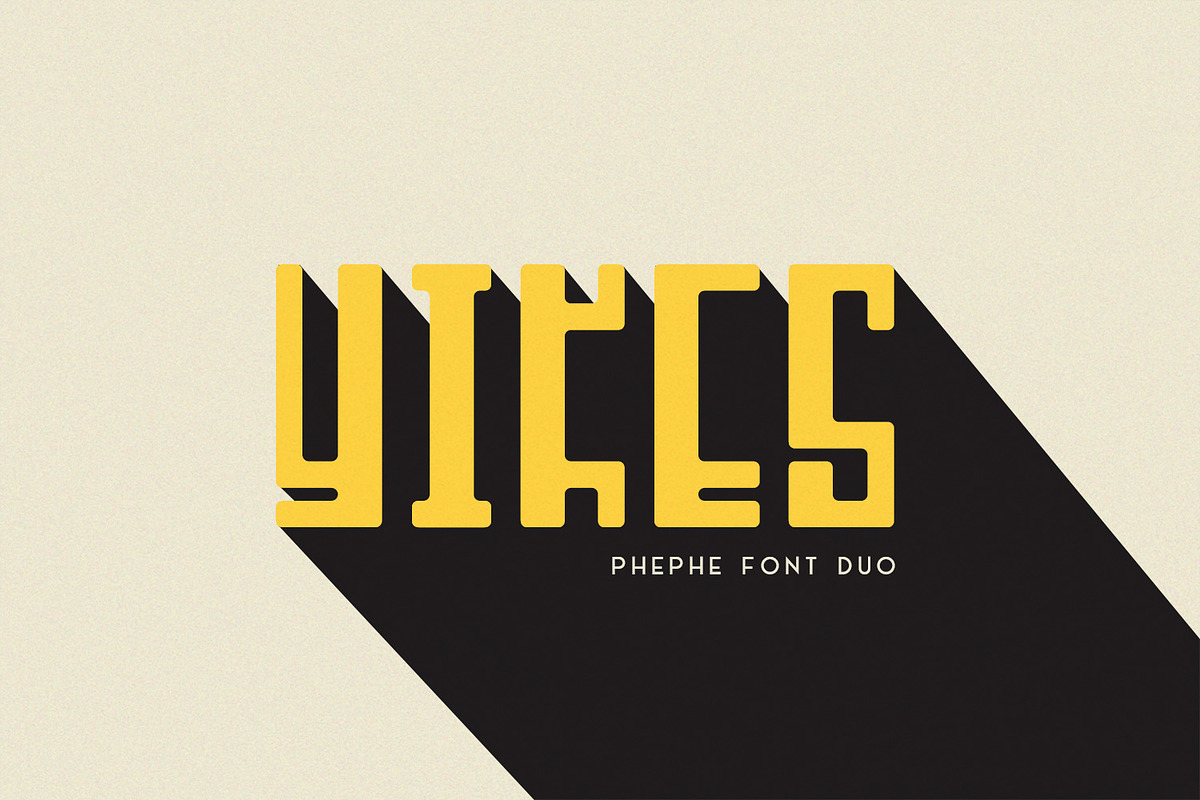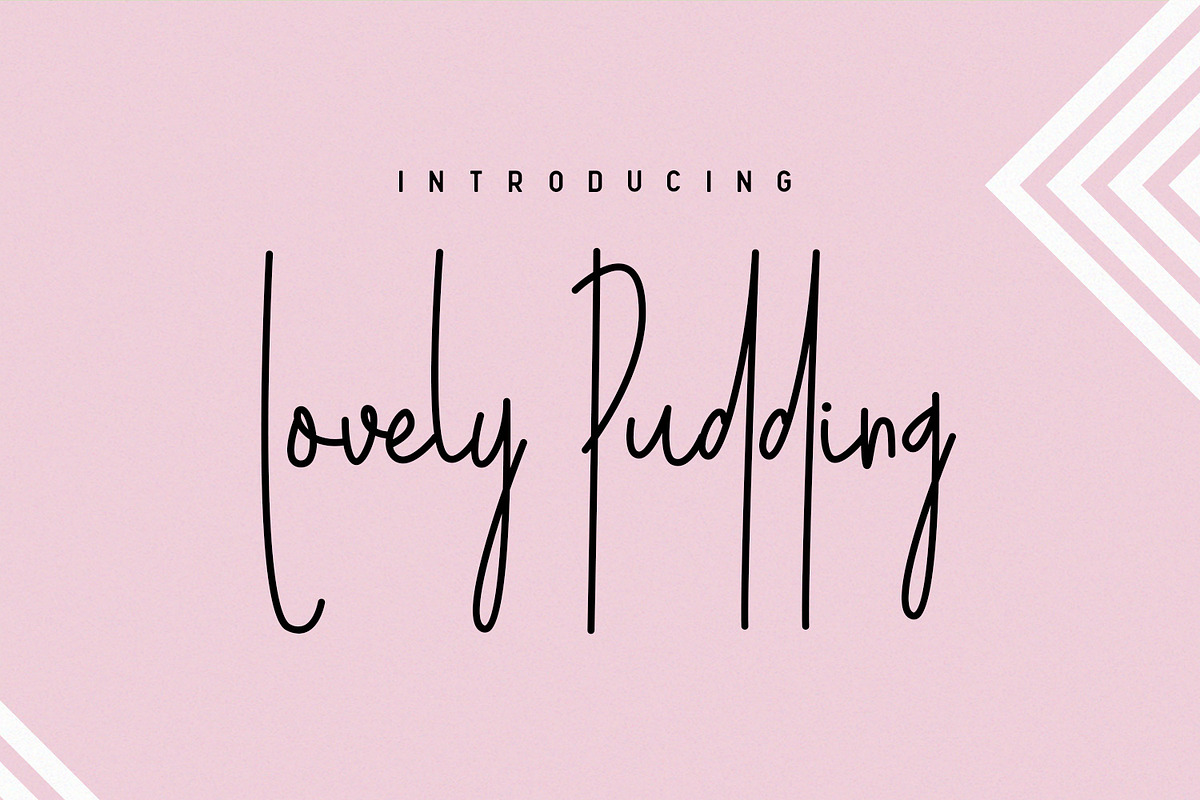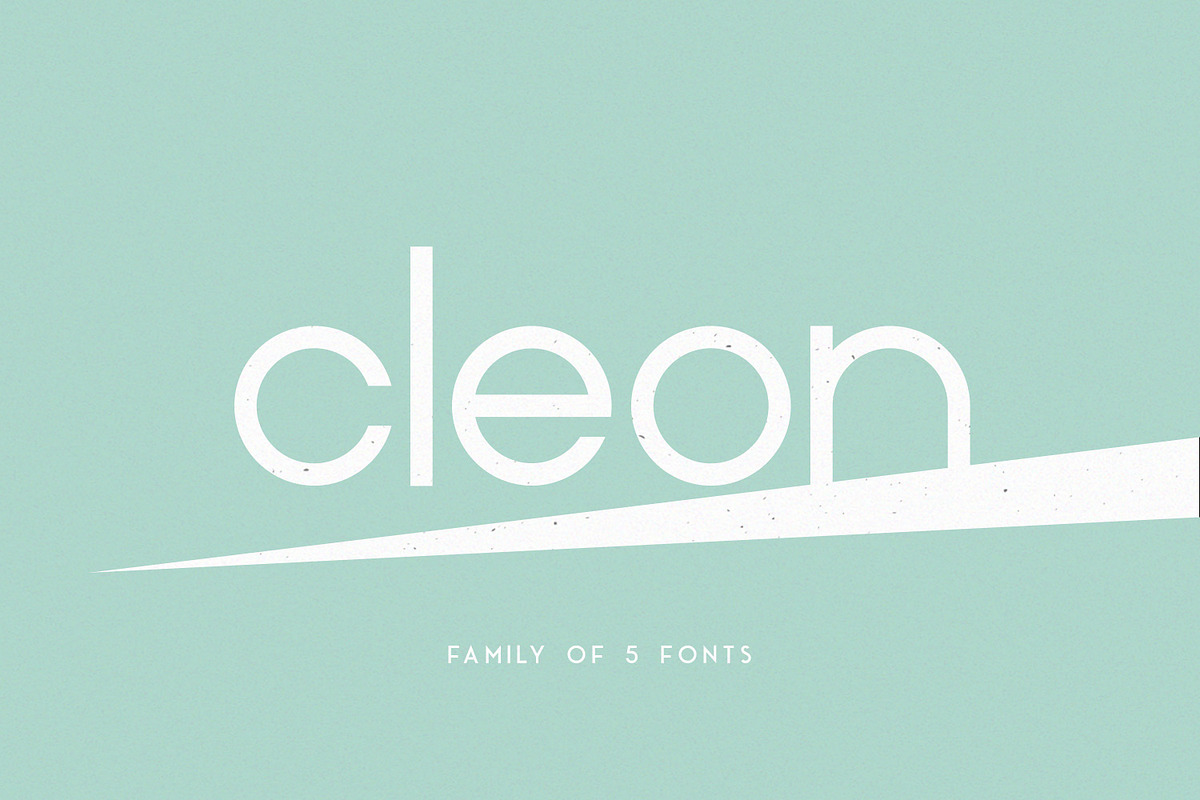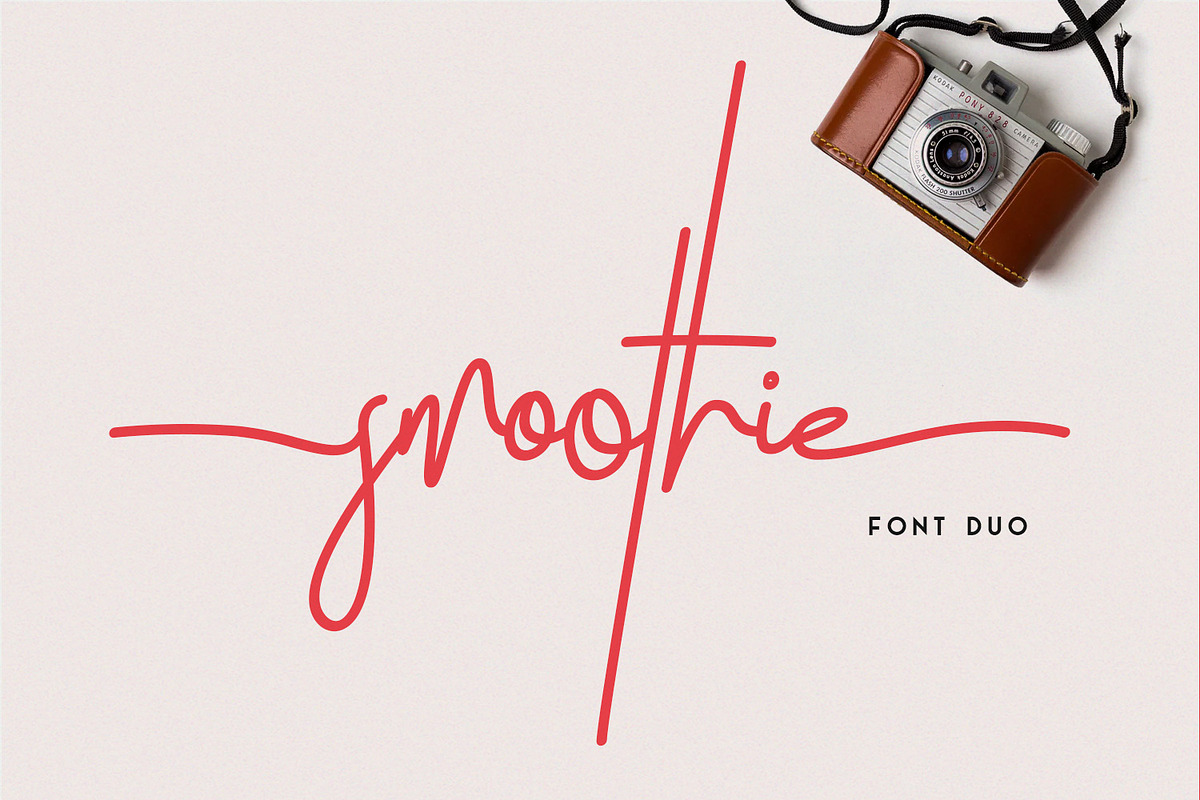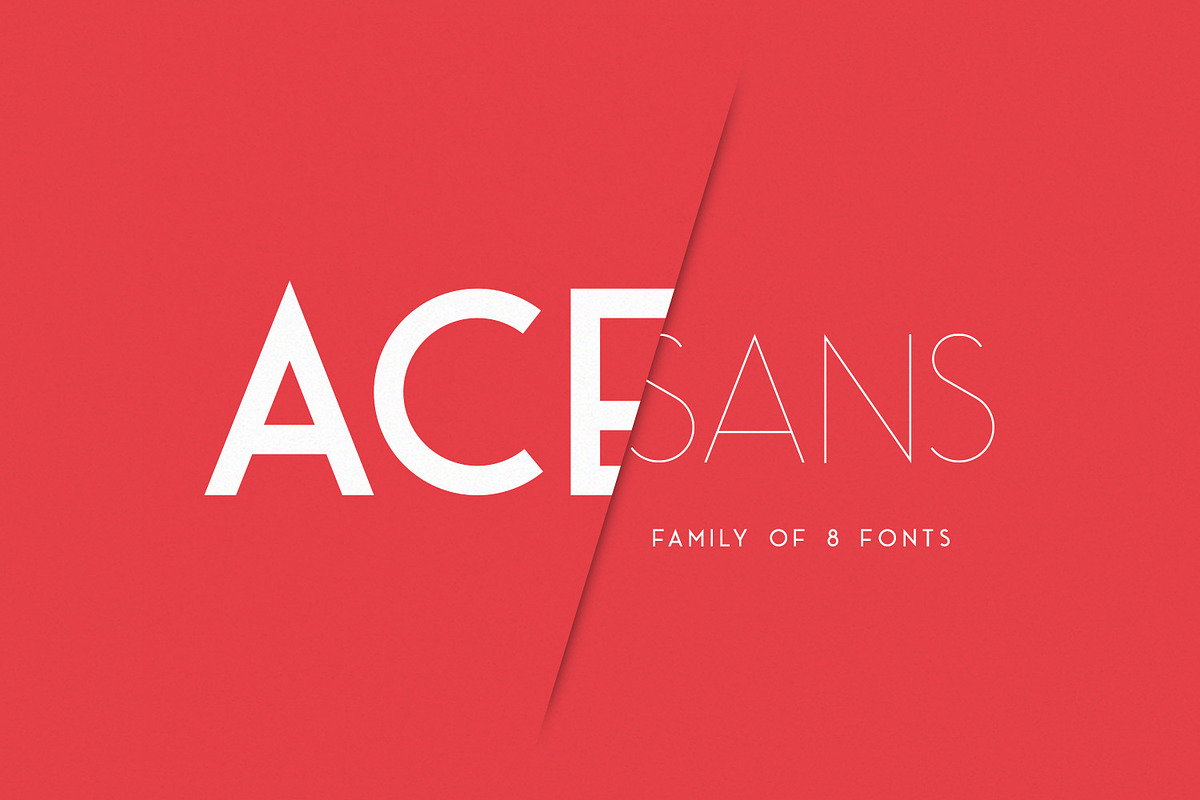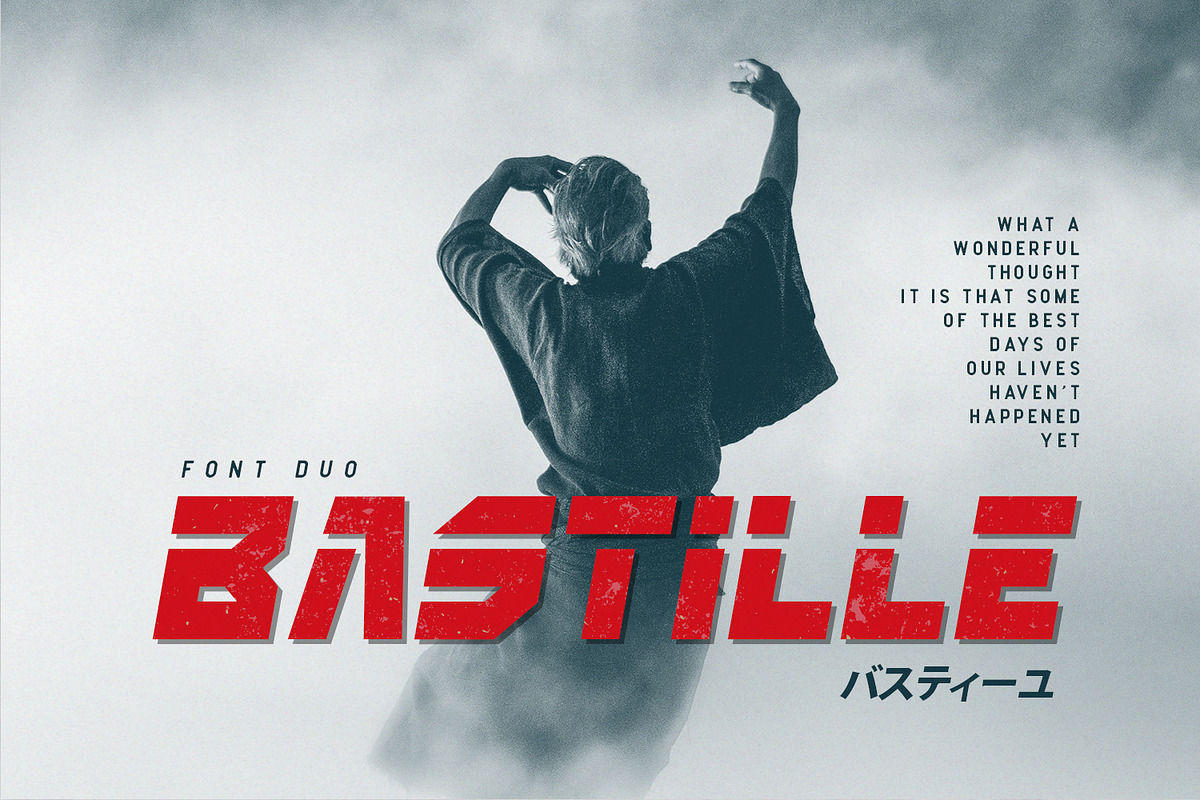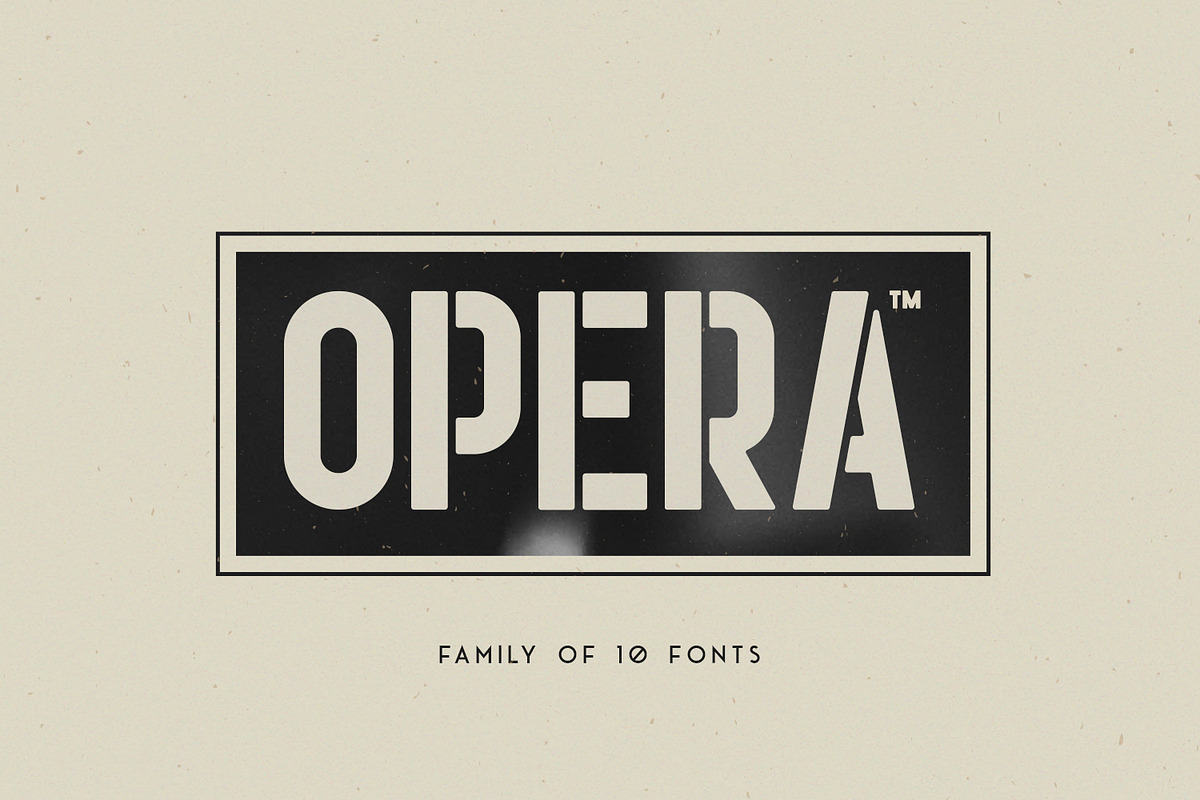
The font styles reach from clean to very ornate, which gives you endless design possibilities. All fonts work perfect for many different projects: quotes, blog header, poster, wedding, branding, logo, fashion, apparel, letter, invitation, stationery, etc.
Smoothie - family of 2 contemporary script, and sans-serif fonts
Cleon - family of 3 modern sans-serif fonts
Ace Sans - family of 8 modern sans-serif fonts
Phephe - family of 2 fun and vintage fonts
Bastille - family of 2 classy and bold fonts
Opera - family of 10 classic sans-serif fonts
Pudding - a fun and modern script font
Django - a fun and vintage font
Brownie - family of 2 classy script, and serif fonts
Ace Serif - family of 8 classic serif fonts
Franky - family of 2 fun and contemporary fonts
Moscato - a dapper handwritten font
Roger Type - a clean and vintage font
Big Mom - family of 2 brush fonts
Roger Serif - family of 2 clean and simple vintage serif fonts
Brulee - family of 2 fun and script fonts
Rouge Sans - family of 3 clean and modern sans-serif fonts
Jacks - family of 2 modern script, and sans-serif fonts
Roger Sans - family of 2 fun and classy sans-serif fonts
Reiju - family of 2 feminine and modern fonts
TonyTony - family of 6 modern sans-serif fonts
Brook - family of 4 handwritten fonts
Ichiji - family of 2 bold and modern fonts
Dalmation - family of 5 vintage fonts
Robin - family of 2 brush fonts